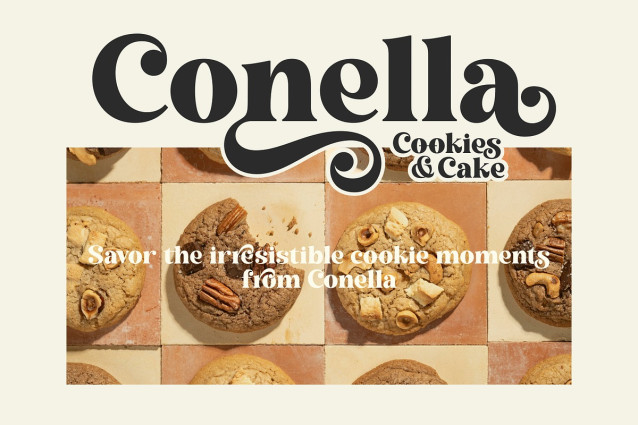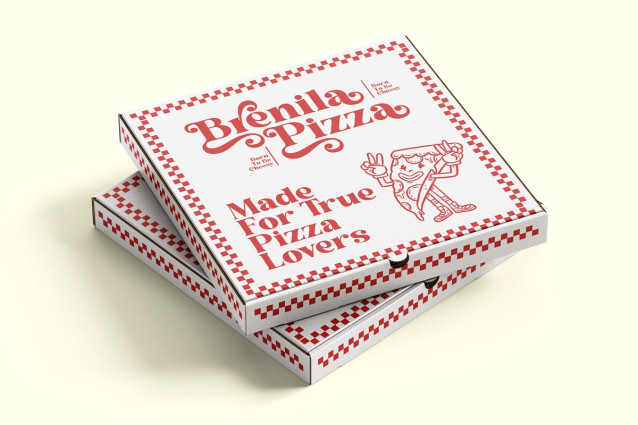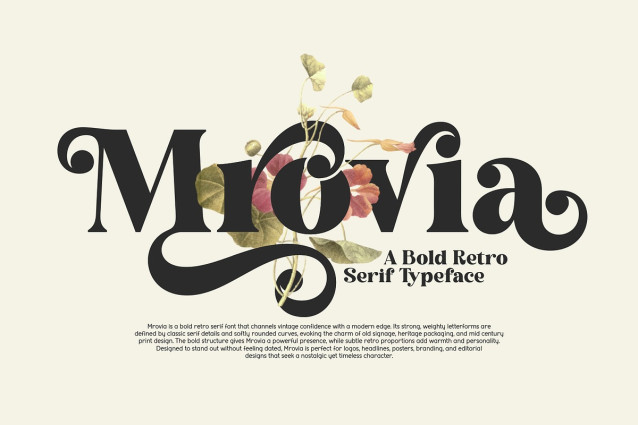
Mrovia Font
Mrovia Font is a bold retro serif typeface that blends vintage charm with confident modern character. Inspired by classic signage and mid-century typography, Mrovia features strong weight, elegant curves, and distinctive serif details that instantly capture attention.
Designed to stand out without feeling outdated, Mrovia delivers a powerful visual presence with a warm, nostalgic tone. Its bold letterforms and smooth flow make it perfect for logos, headlines, posters, branding, packaging, editorial layouts, and display designs that need a timeless yet expressive look.
Whether you’re creating retro-inspired branding or modern designs with a classic soul, Mrovia adds personality, confidence, and style to every project.